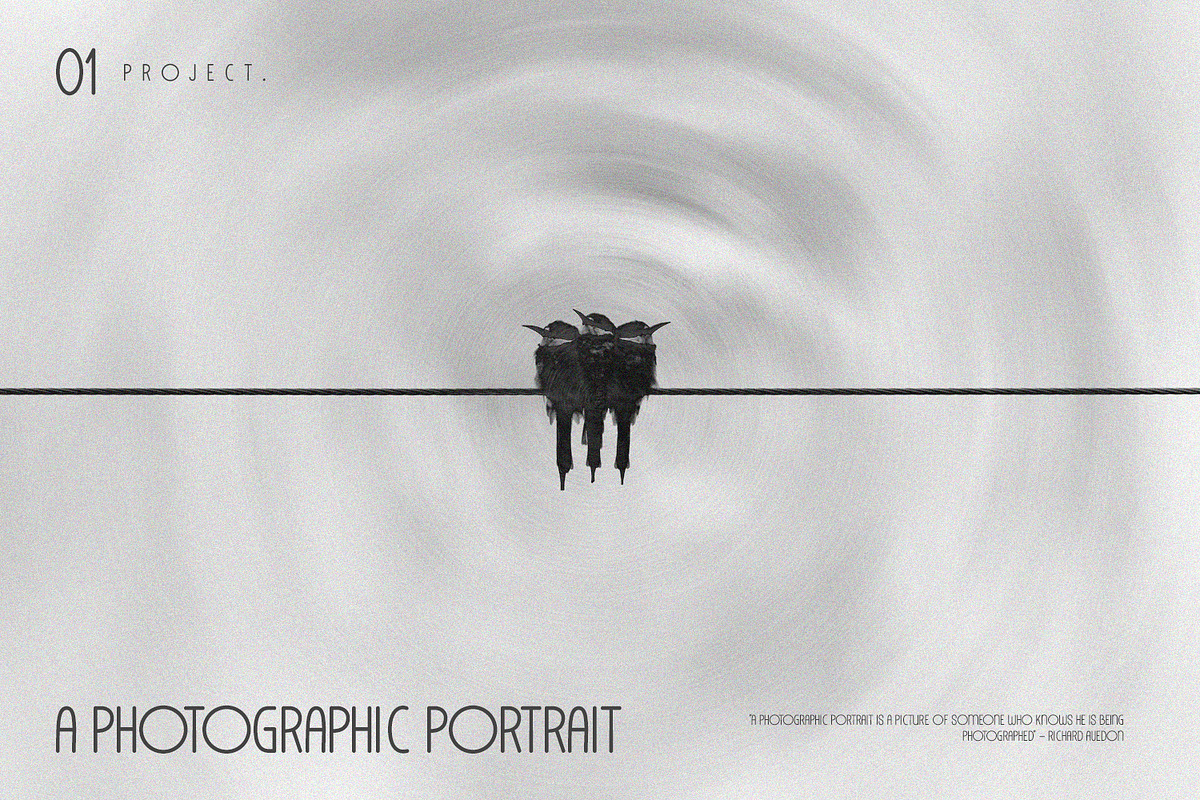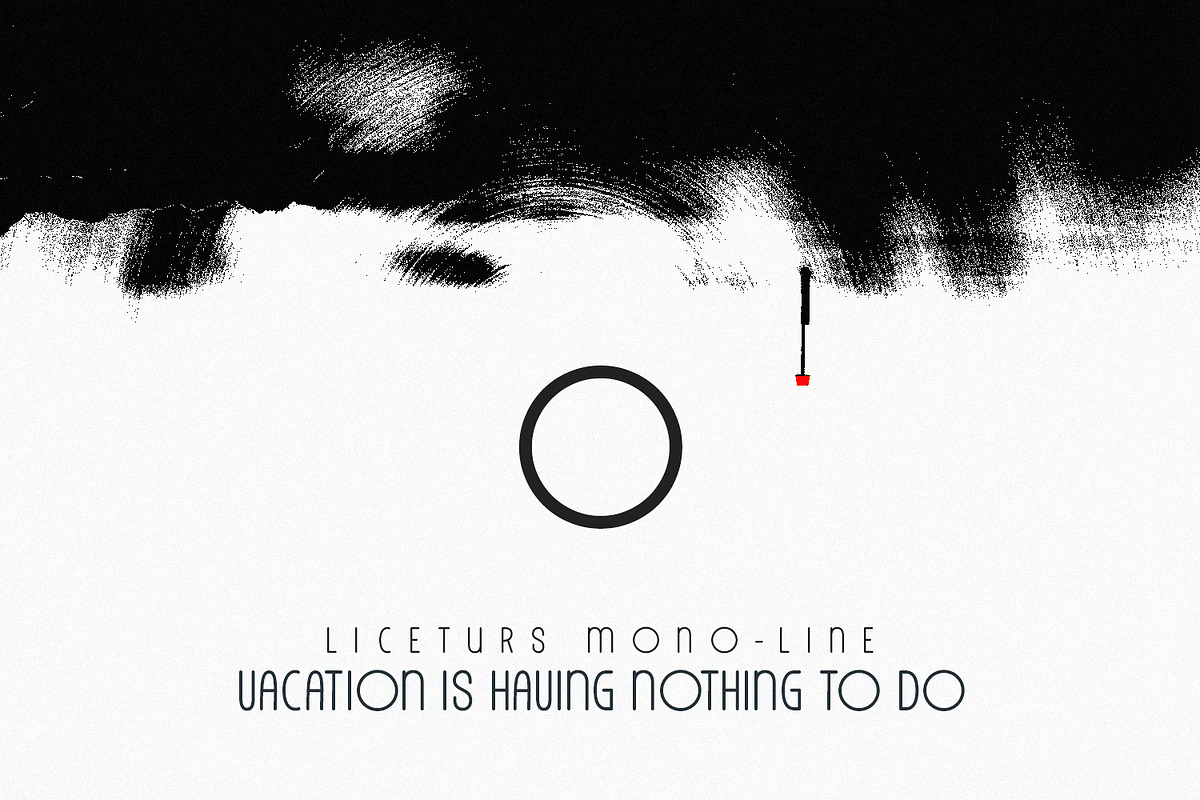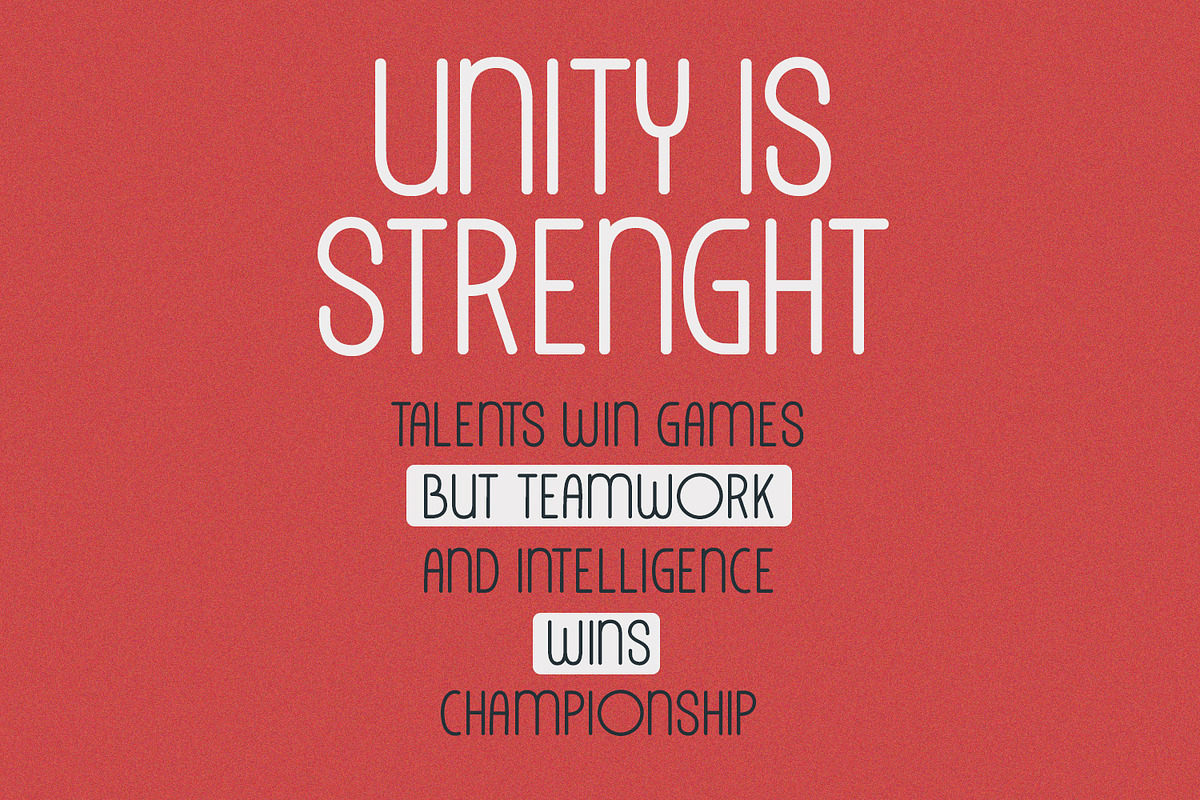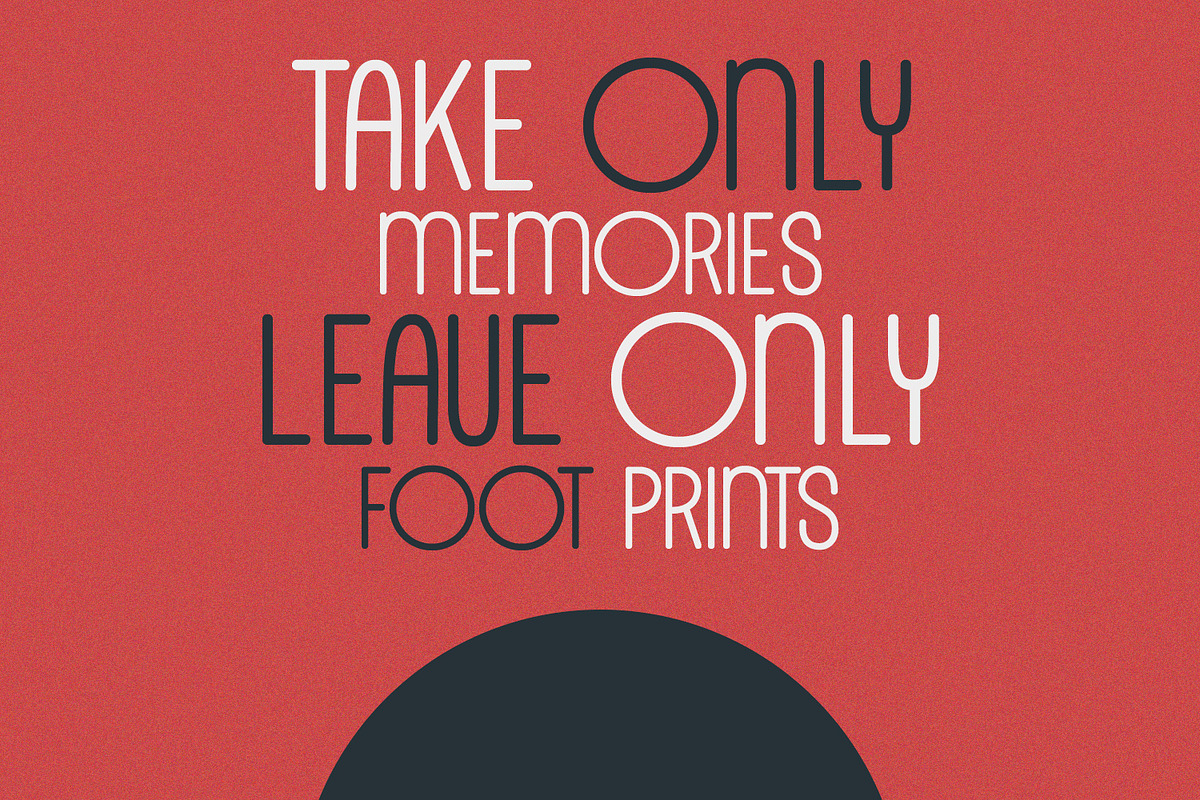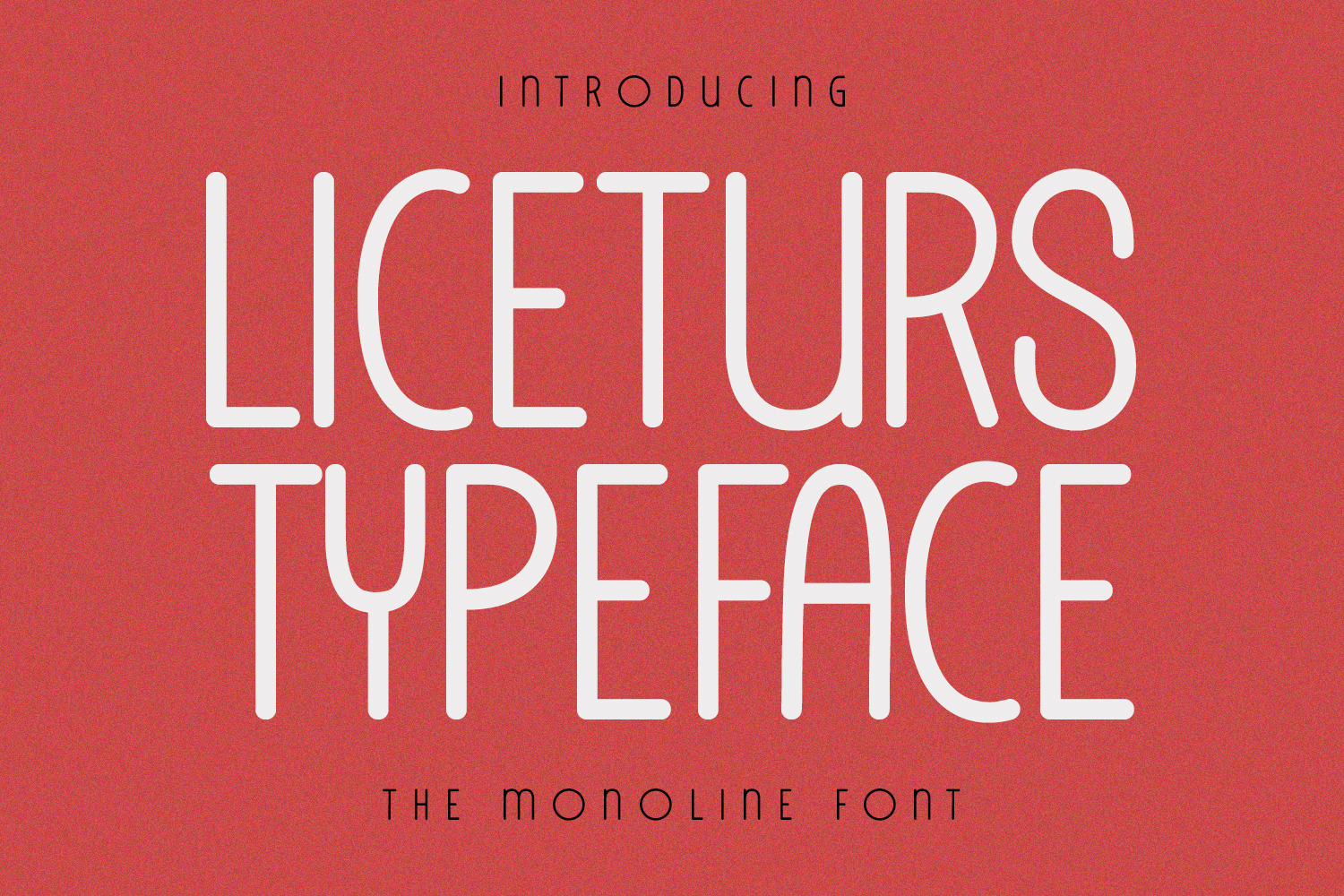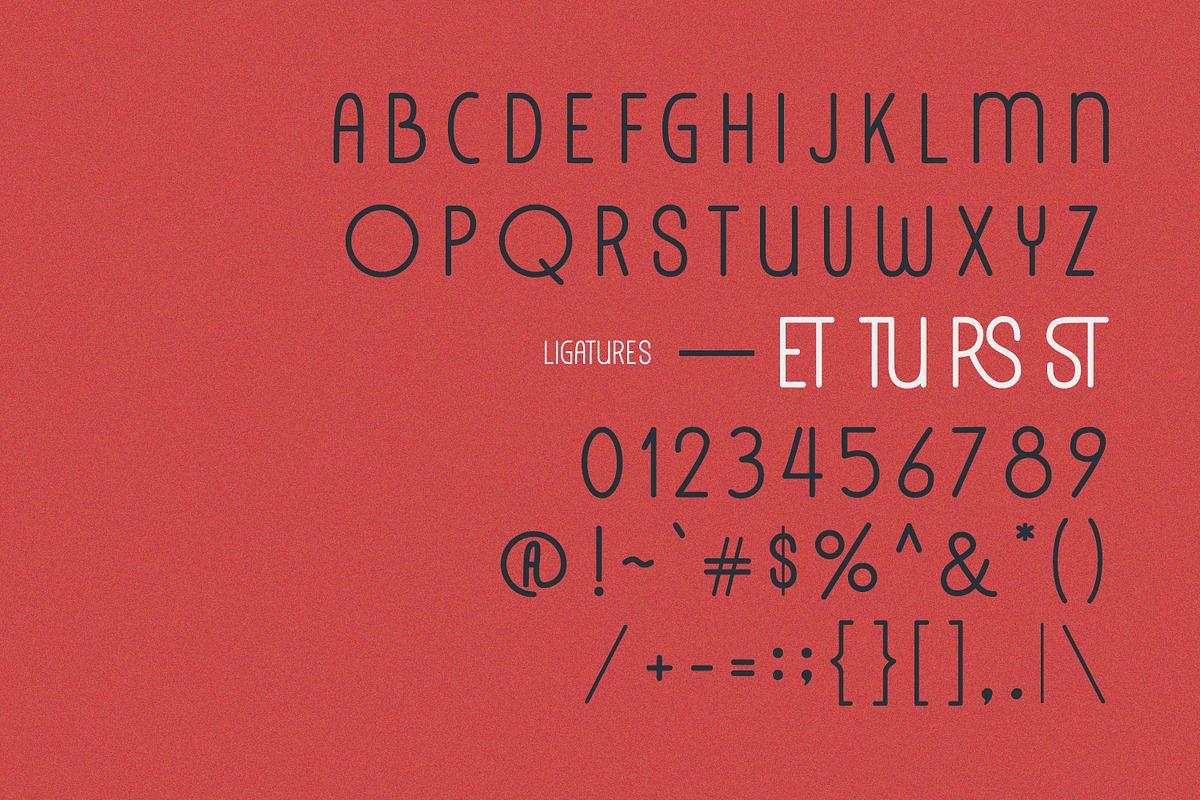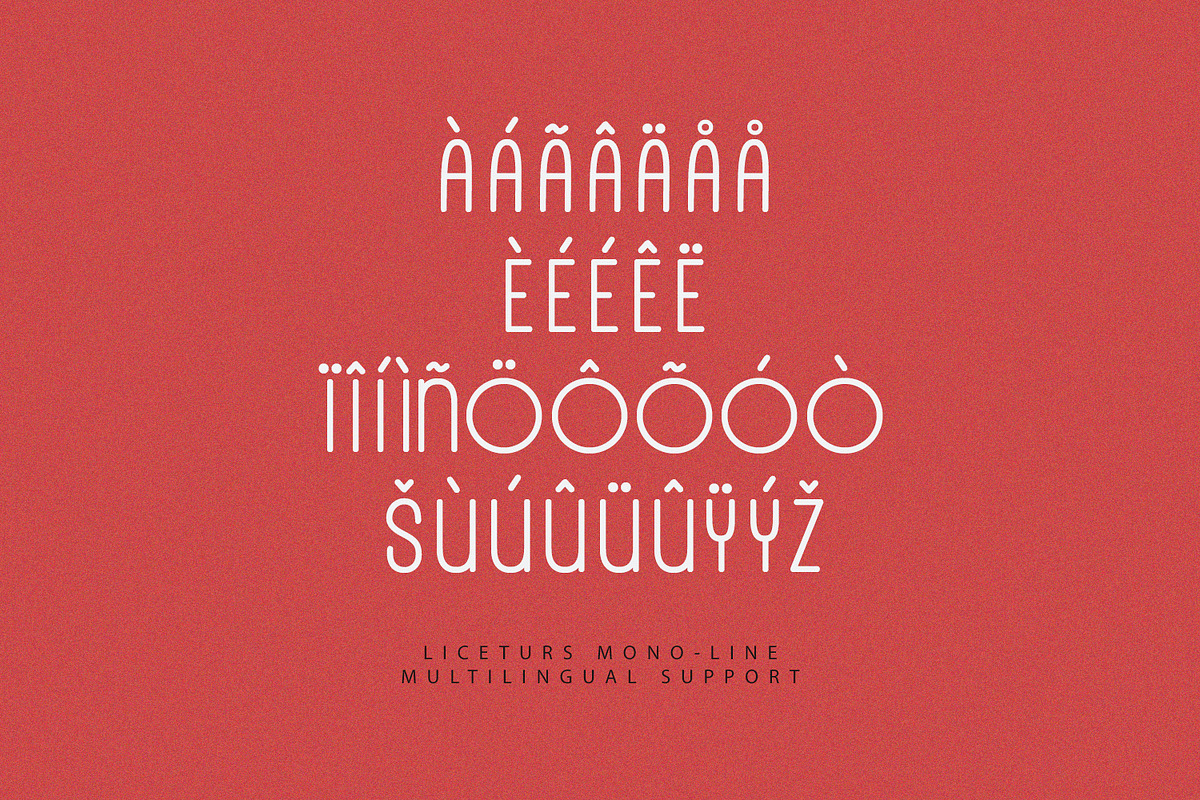
Liceturs Typeface Monoline Font
Liceturs is a rounded based sans font. Rounded stroke, fun character with a bit of ligatures. To give you an extra creative work. Liceturs font support multilingual more than 100+ language. This font is good for logo design, Social media, Movie Titles, Books Titles, a short text even a long text letter and good for your secondary text font with script or serif. Make a stunning work with Liceturs font.